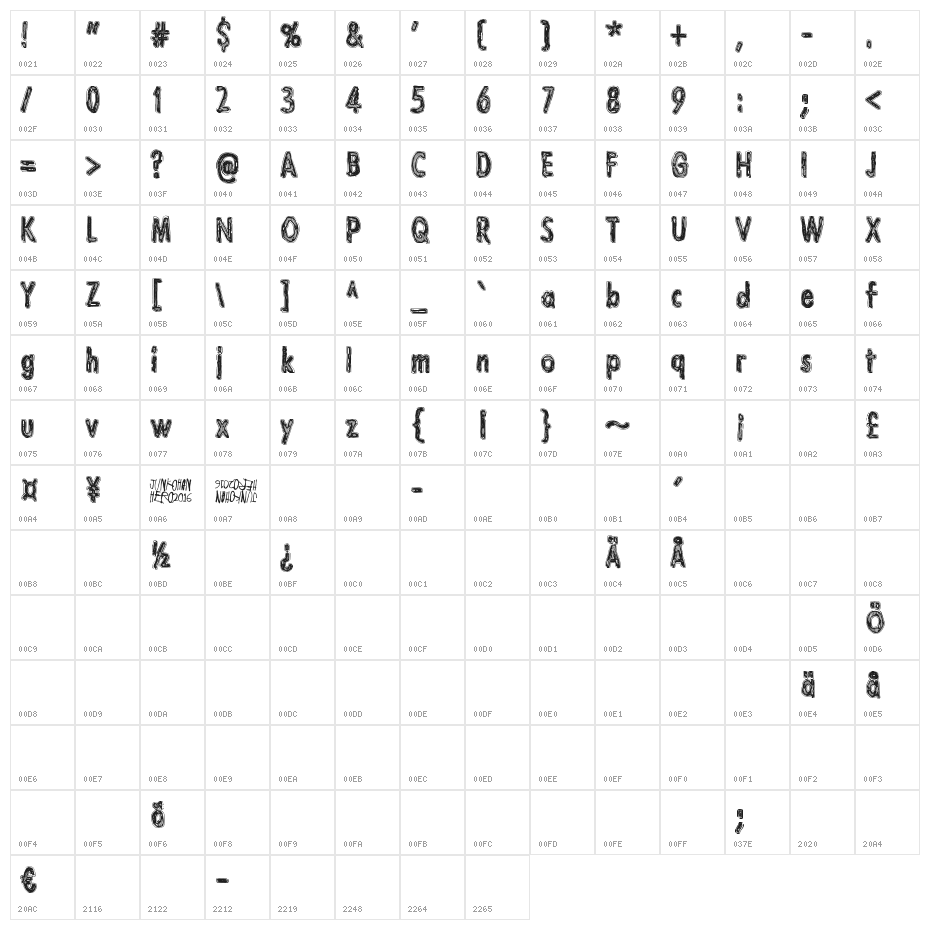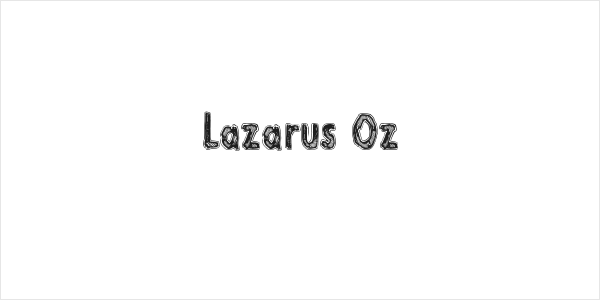
Lazarus Oz Font
Lazarus Oz Description
This font features a bold, hand-drawn style with a playful and artistic flair. Each character is outlined with a thick, uneven stroke that gives it a textured, almost sketch-like appearance. The letters are uppercase and lowercase, with numbers and a variety of special characters included. The design is reminiscent of chalk or marker drawings, adding a casual and informal touch. The irregularities in the strokes contribute to its unique and eye-catching look, making it suitable for creative and fun projects.
| Overall Style | Playful, Artistic |
| Proposed Projects | Ideal for posters, children's books, creative branding, and playful graphic designs. |